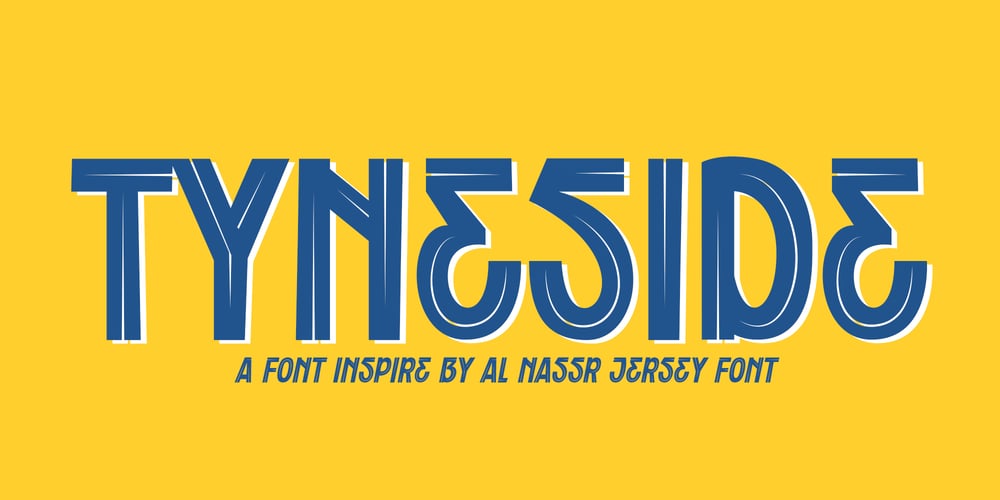
Tyneside Font Family was designed by Muhammad Afif Ersya and published by Trequartista Studio. Tyneside contains 4 styles and family package options. created in 2023, Tyneside is corporate and not too eccentric, but still has a strong character that makes it a the perfect starting point for the new Tyneside text font family. Clarity is very important when displaying a lot of information on the screen. The ranking table is full of names and times and while the display typeface should stand out, the text pieces should be eye-catching and very legitimate. We sharpened the corners, made some shapes easier to read and more modular, clean and sporty overall. We are very satisfied that Tyneside managed to capture the “spirit of sporting enthusiasm” in the personality of the typeface. We hope to create a growing family of typefaces in the future and maintain our partnership